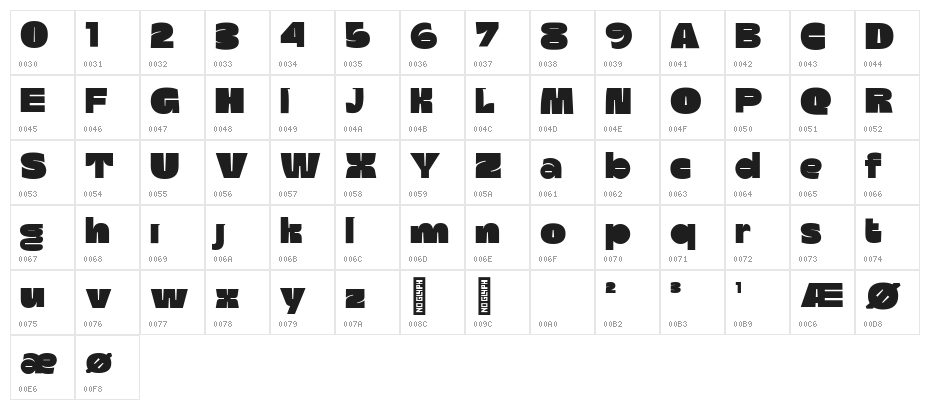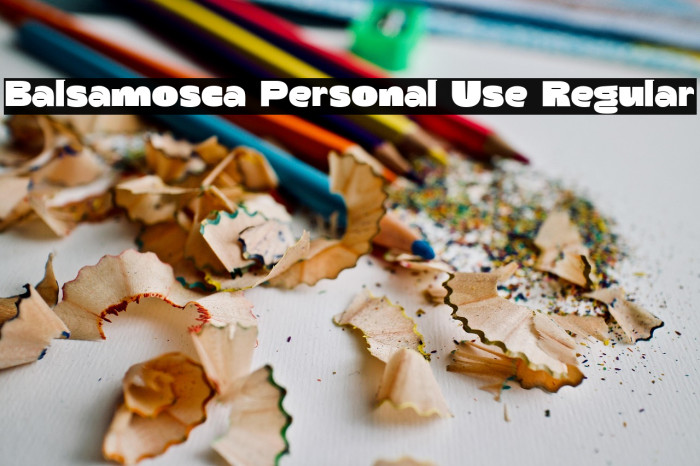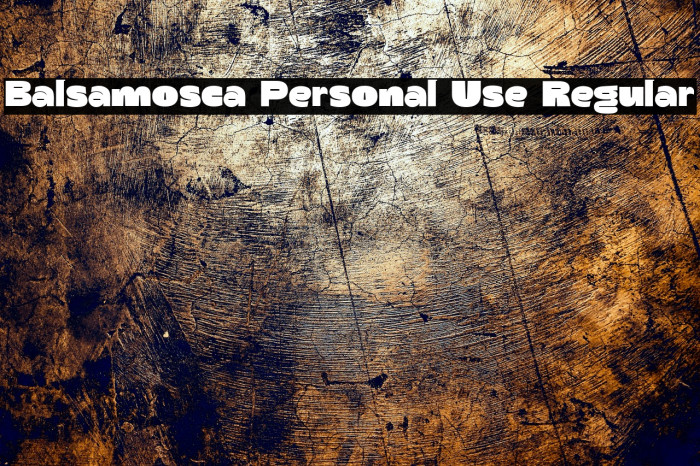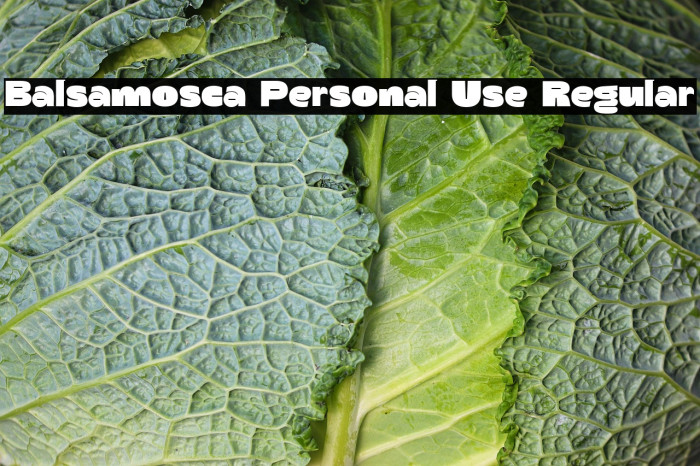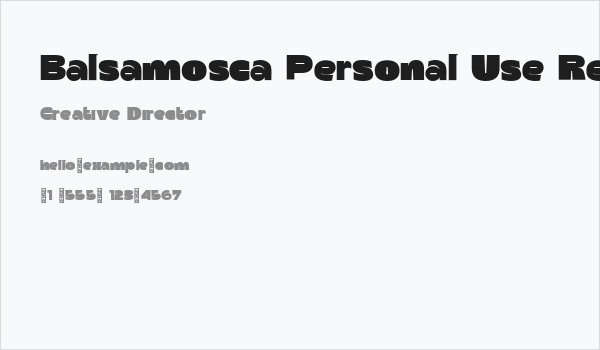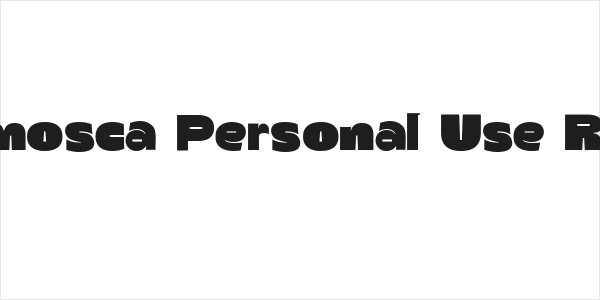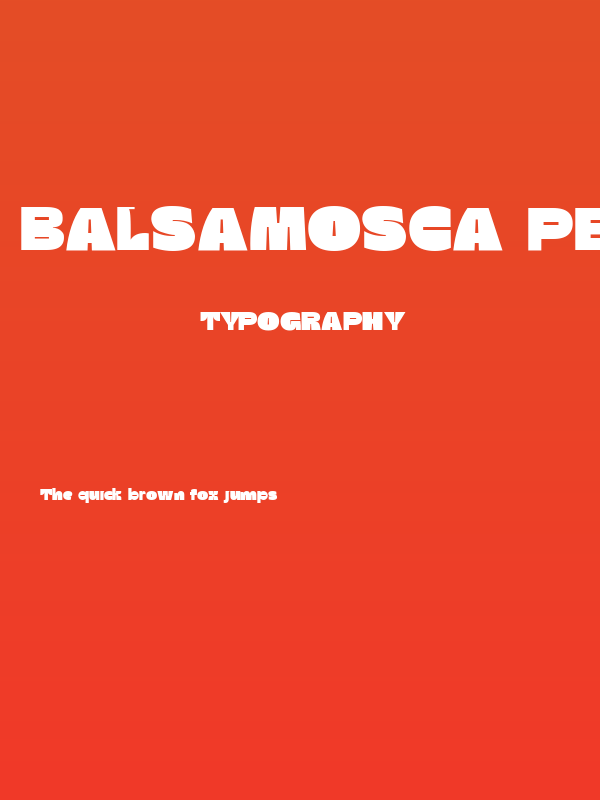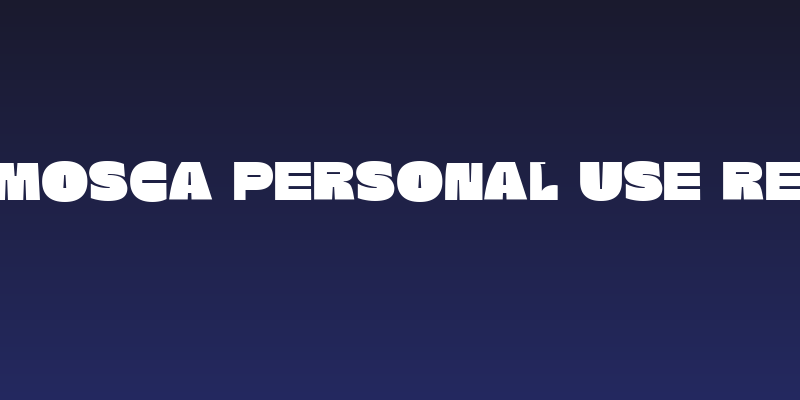
Balsamosca Personal Use Regular Font
Balsamosca Personal Use Regular Description
This font features a bold and striking design with thick, blocky characters that create a strong visual impact. The letters are wide and have a unique geometric style, with some characters incorporating subtle curves and angles that add a modern touch. The uppercase and lowercase letters maintain a consistent weight, providing a cohesive look across the alphabet. Numbers and special characters follow the same bold aesthetic, ensuring uniformity throughout. The overall appearance is both playful and assertive, making it suitable for eye-catching designs.
| Proposed Projects | Ideal for posters, headlines, branding, and any project requiring a bold statement. |